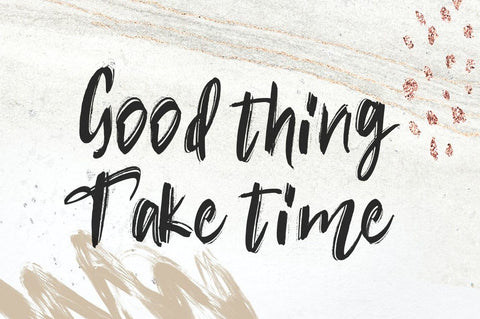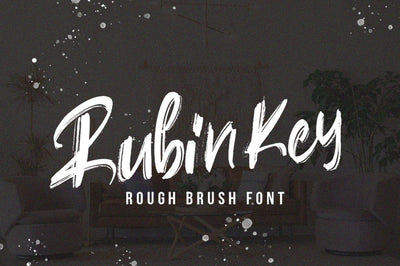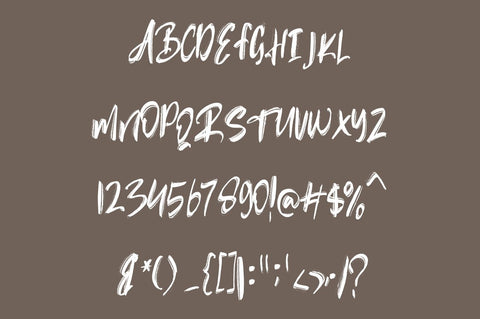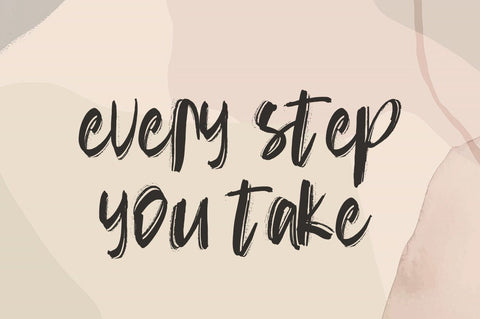
Rubin Key - Rough Font
Rubin Key is a beautiful handwritten font, created with the help of a unique brush pen. Fall in love with its incredibly versatile style and use it to create spectacular designs!
- Uppercase + Lowercase Letters
- Numbers + Punctuation
- Ligature Feature